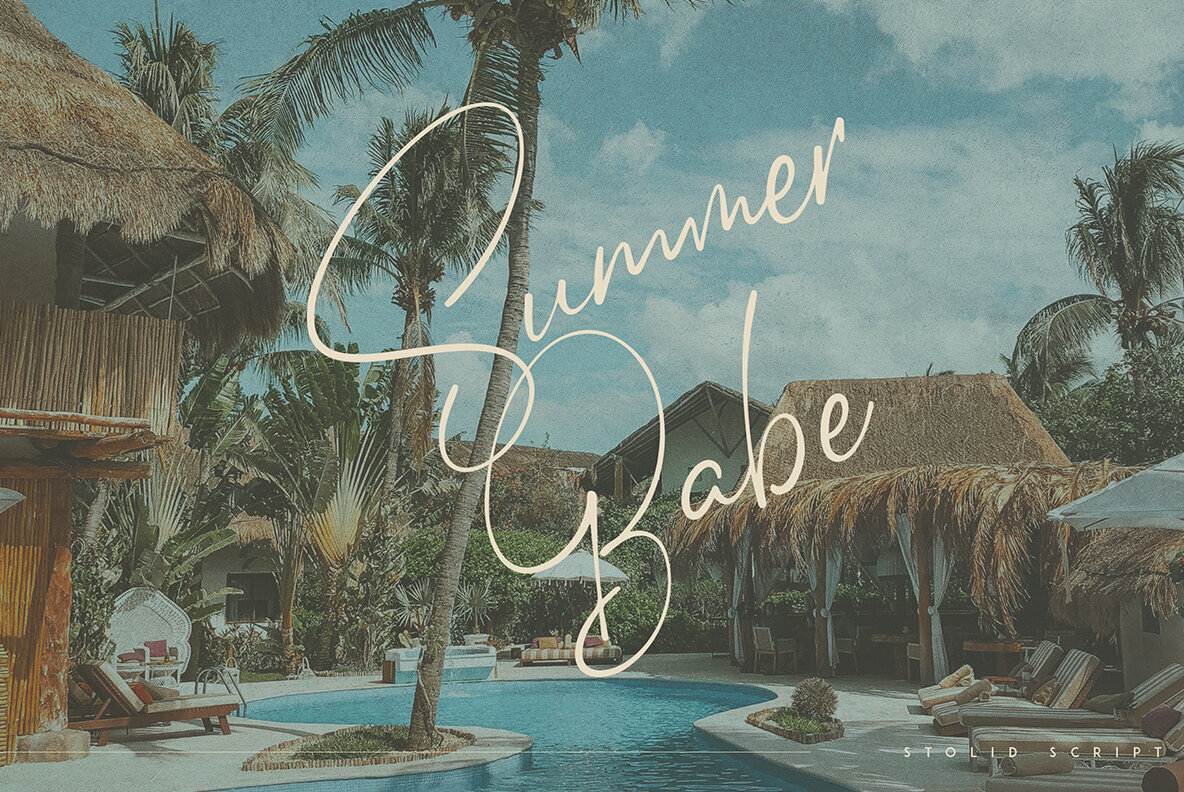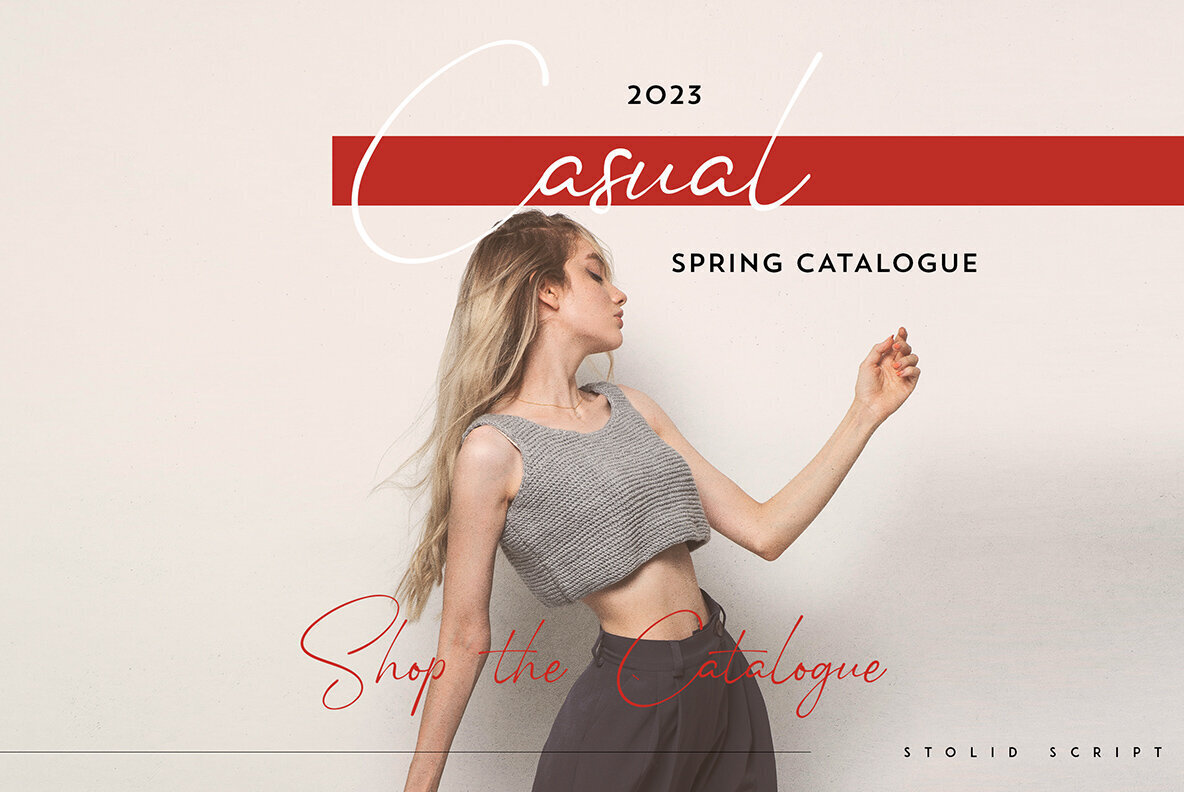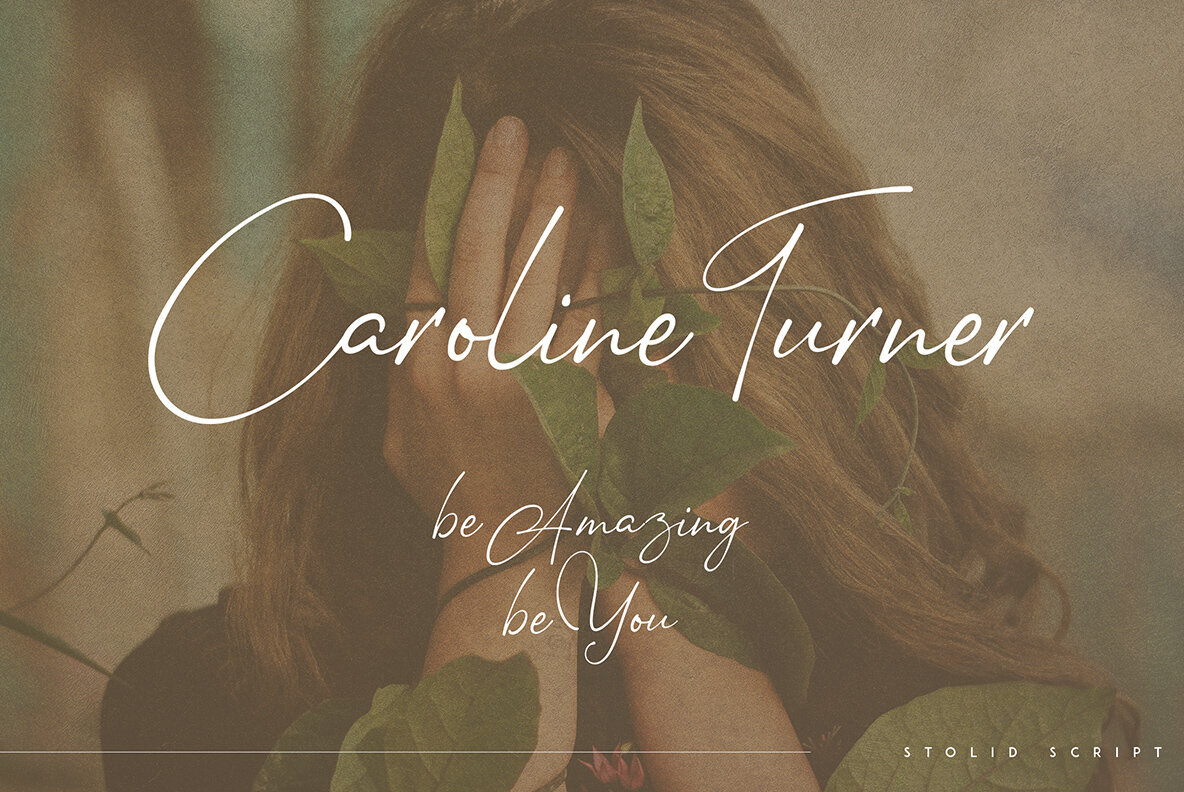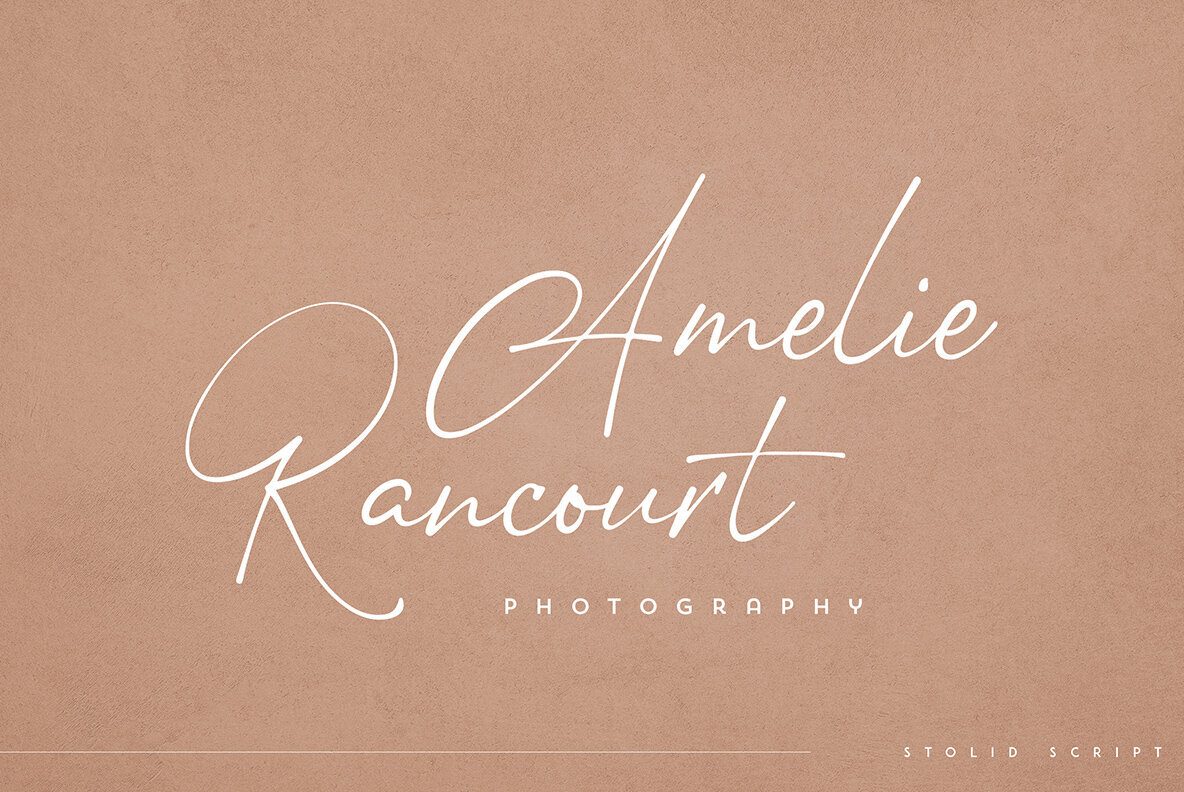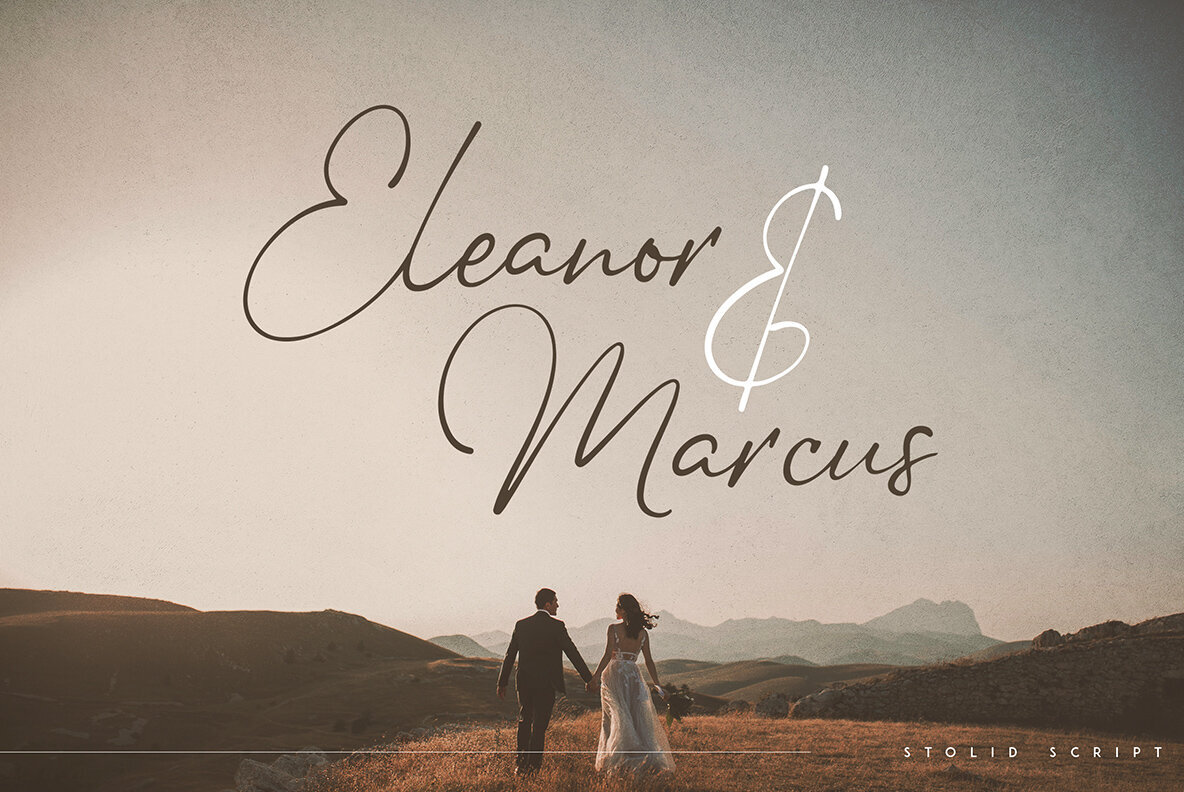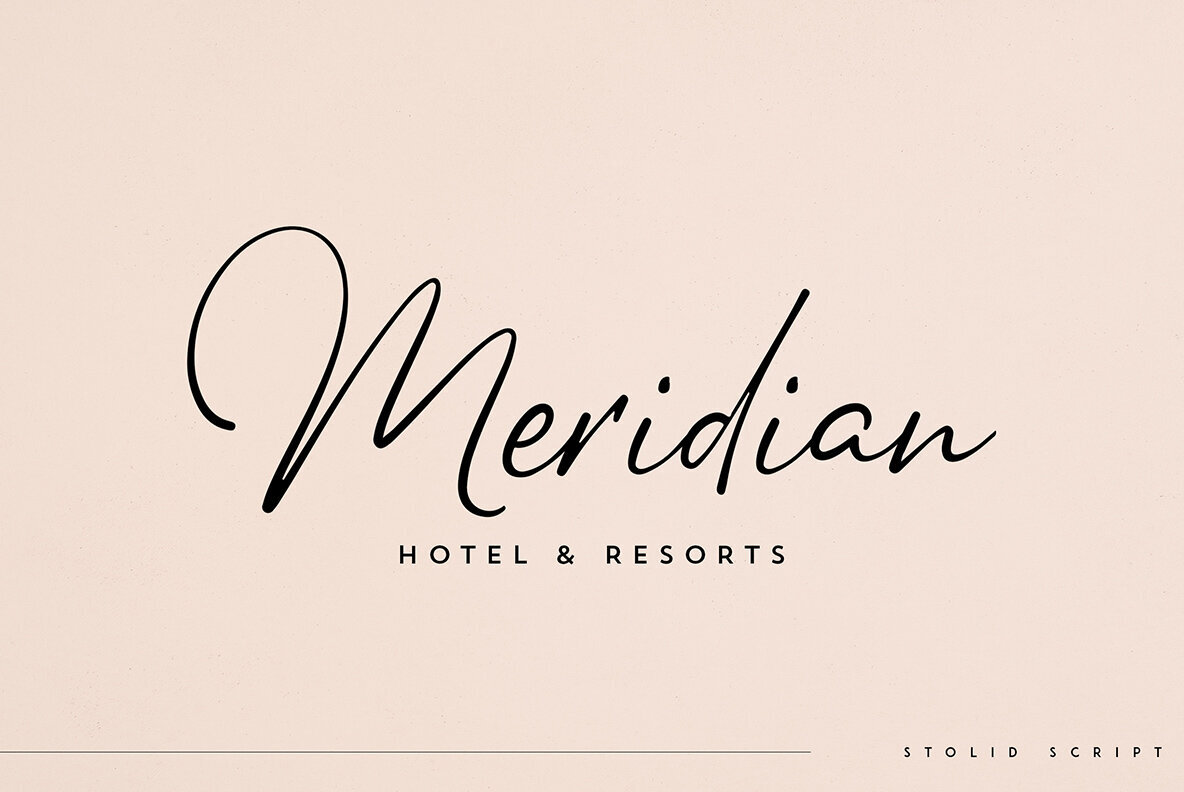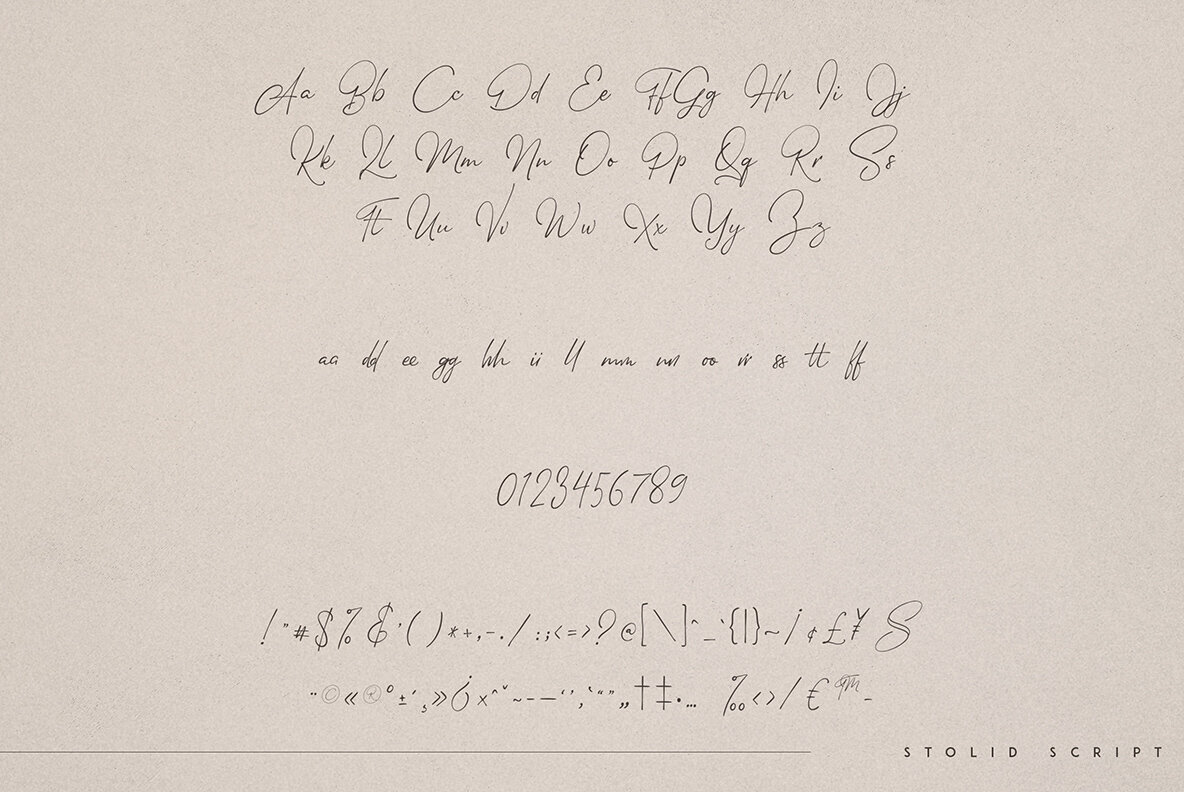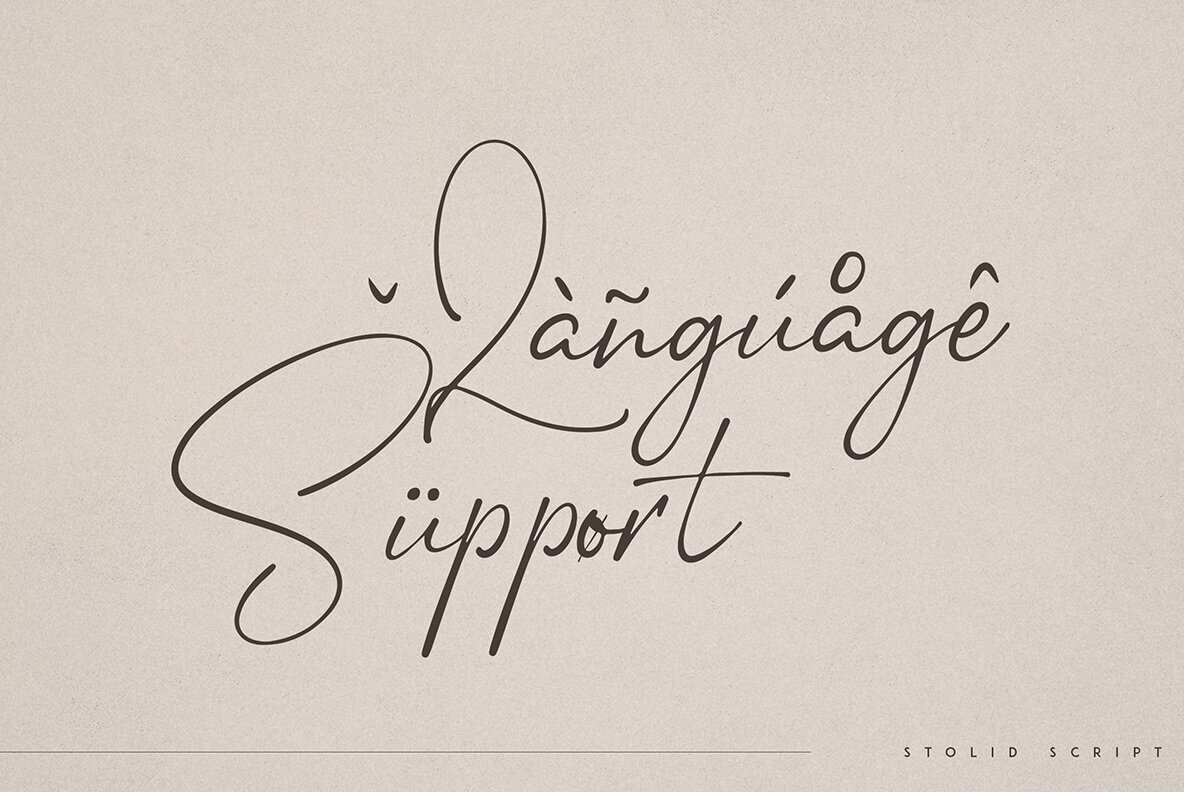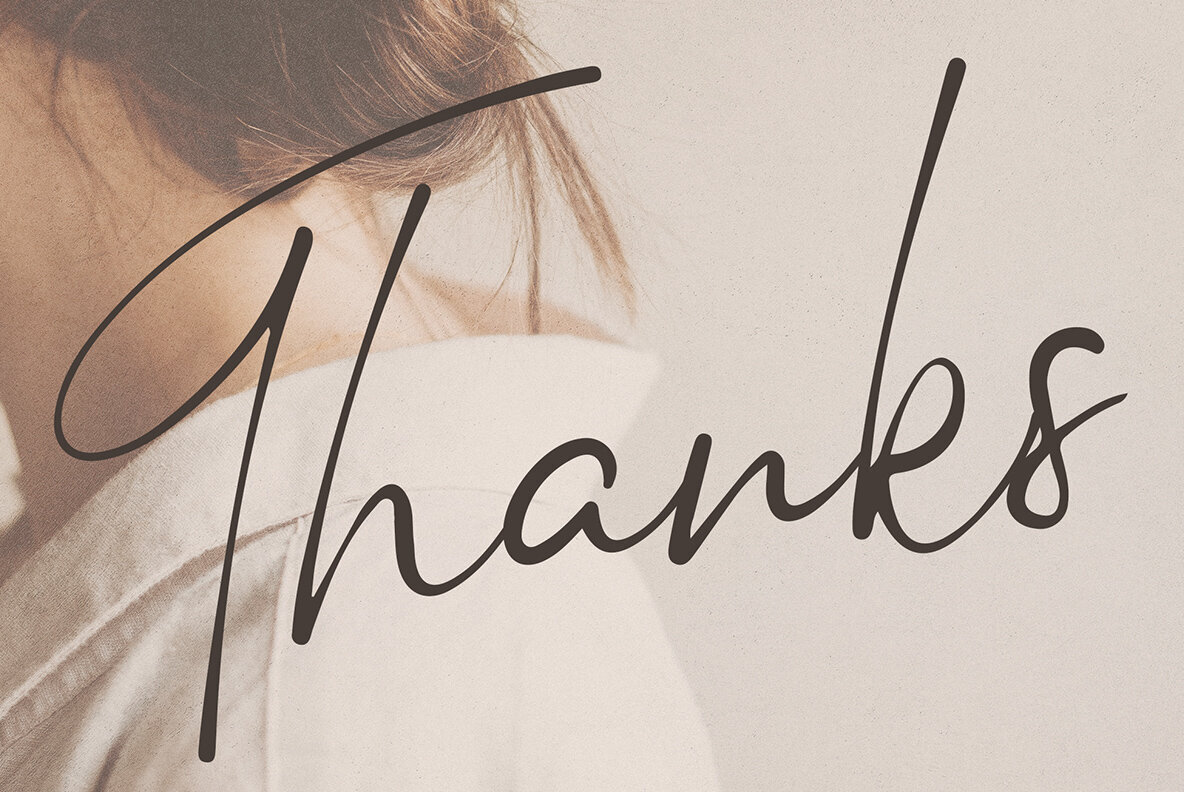
Stolid: Versatile Modern Script
Stolid merges organic fluidity with casual elegance, making it a versatile choice for both large and small-scale design projects. Whether you're engaged in branding, product packaging, or enhancing magazine headers, this modern script font lends a sophisticated yet approachable touch. Its adaptability as a stylish text overlay on various background images is undeniable.
• Uppercase, lowercase, numeral, punctuation & symbols
• Ligature glyphs
• Multilingual support